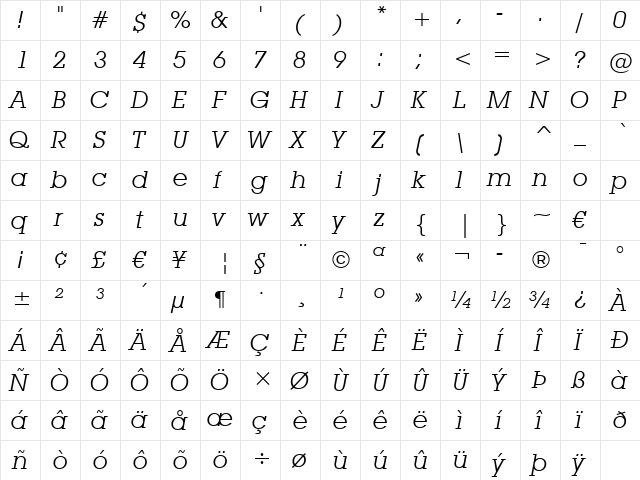
LubalGraph Bk BT Book Oblique
LubalGraph Bk BT offers clean, dependable letterforms without strong stylistic allegiance, making it a practical choice for designers who need flexibility. The slanted form adds forward momentum and visual energy.
Pro Tip: Use LubalGraph Bk BT for emphasis, pull quotes, and subheadings where its slanted energy can add rhythm to the layout.